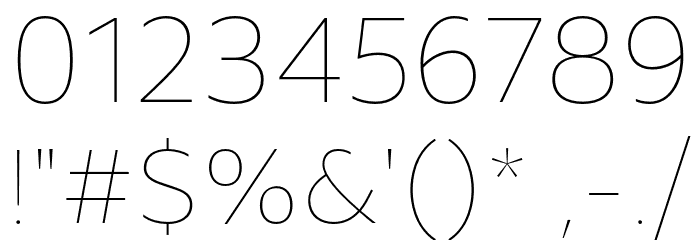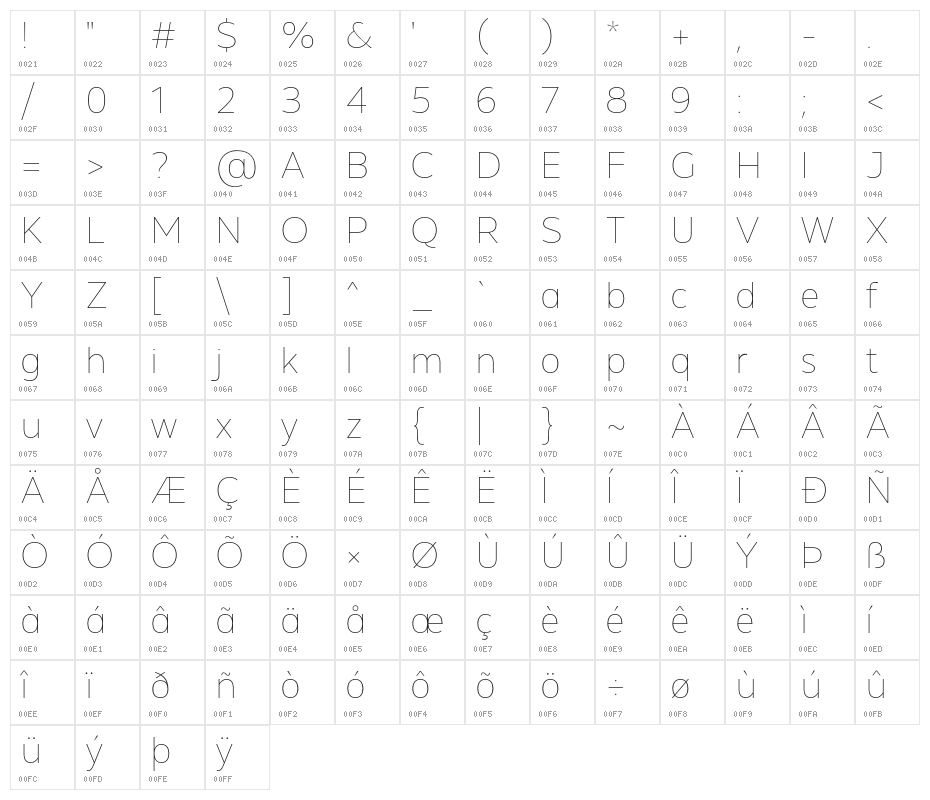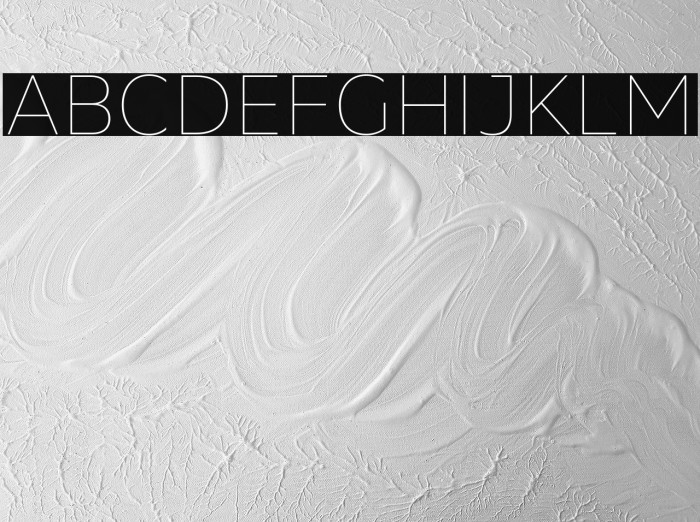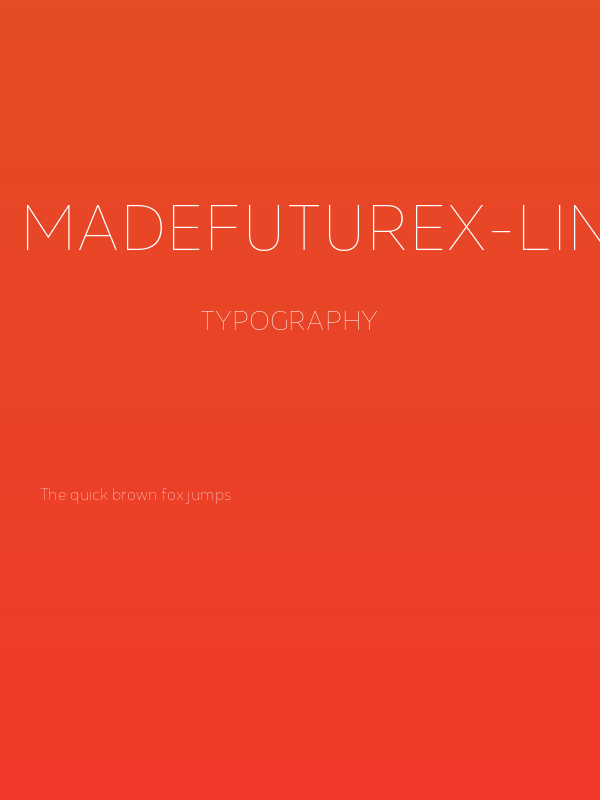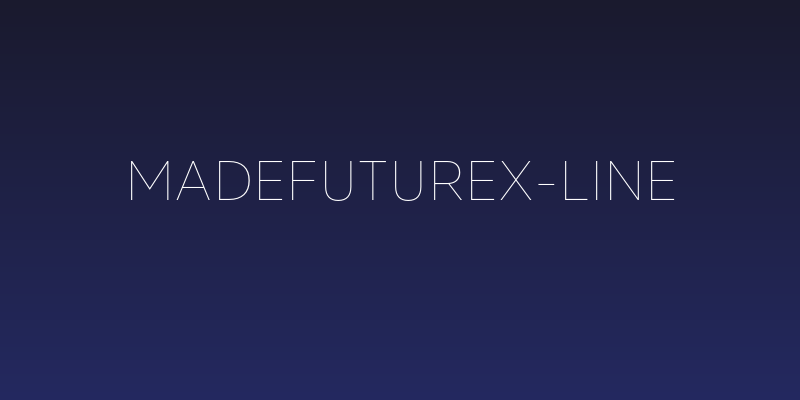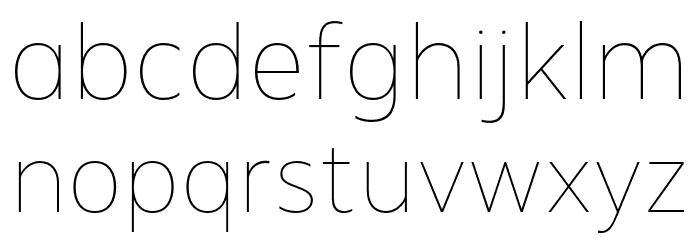
MADEFutureX-Line Font
MADEFutureX-Line Description
This font features a clean and minimalist design, characterized by its thin, uniform lines and geometric shapes. The characters are well-proportioned, with a modern aesthetic that emphasizes simplicity and clarity. The uppercase and lowercase letters maintain a consistent style, with rounded edges and a balanced structure. Numbers and special characters are designed to complement the alphabet, ensuring a cohesive look across all elements. The overall appearance is sleek and contemporary, making it suitable for a variety of design applications.